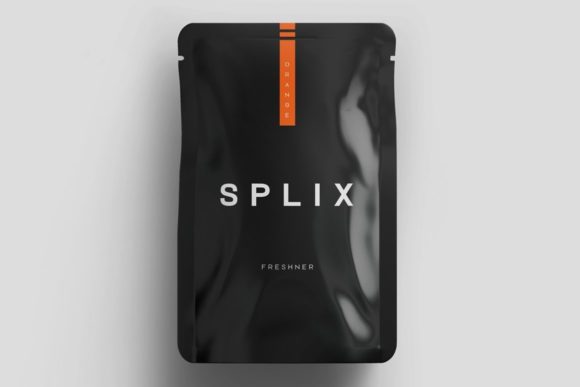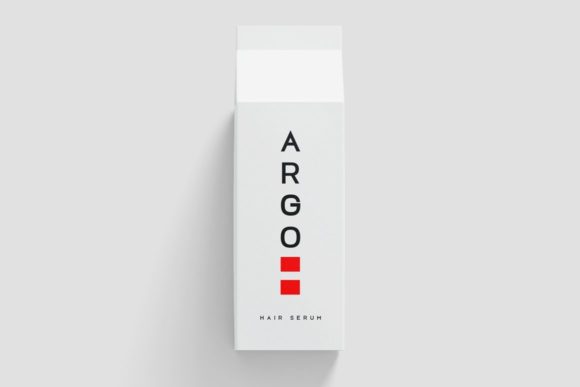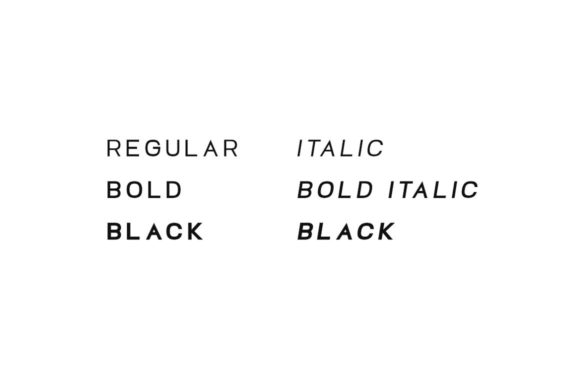
Discover the Perfect Partner for Your Creative Projects: Foslin Font
Have you ever been working on a design project, staring at a blank canvas, and suddenly a burst of creativity hits you? You envision the perfect font, the one that will elevate your design from good to great. That’s exactly what happened to me when I stumbled upon the Foslin Font. Its minimal and neat sans serif style has been a game-changer for my projects.
Foslin Font is designed to be versatile, making it the perfect addition to any creative endeavor. Whether you’re working on a branding project, a website, or a digital publication, Foslin Font’s clean lines and modern feel will help your design stand out. As a designer, you’ll appreciate the value of having a font that can adapt to any style, from minimalist to bold and eye-catching.
With Foslin Font, you’ll unlock a world of creative possibilities. Its flexibility and timeless design make it an essential tool for any designer looking to take their projects to the next level.
Foslin Font Key Features
- Font Family: Foslin Font is a sans-serif font family designed for digital use. It is available in 4 weights: Light, Regular, Medium, and Bold.
- Character Set: Foslin Font includes a wide range of characters, including Latin, Greek, and Cyrillic alphabets, as well as punctuation and symbols.
- Unique Characteristics: Foslin Font features a clean and modern design, with a focus on legibility and readability. Its unique characteristics include a high x-height and a subtle italic angle, making it an excellent choice for body text and digital signage.
Foslin Font Review
Overall, I think the Foslin font is a great addition to any design project, but like any font, it has its strengths and weaknesses.
- The Foslin font has a unique and elegant design that makes it perfect for titles and headings.
- The font is highly legible, even at smaller font sizes, making it a great choice for body text.
- The font family includes a wide range of weights and styles, giving designers a lot of flexibility when it comes to choosing the perfect look for their project.
- The Foslin font may not be the best choice for projects that require a bold, attention-grabbing font. Its elegant design can come across as a bit understated in some cases.
- The font may not be suitable for projects that require a lot of bold or italic text, as the bold and italic styles can look a bit inconsistent with the rest of the font.
Overall, I think the Foslin font is a solid choice for designers who are looking for a elegant and highly legible font. While it may not be perfect for every project, it’s definitely worth considering for any design that requires a touch of sophistication.
Tips for Getting the Most Out of Foslin Font
1. Use Foslin Font for headings and titles to add a touch of elegance to your design.
2. Experiment with different font sizes and styles to create visual interest.
3. Pair Foslin Font with other fonts to create a unique and eye-catching combination.
4. Use Foslin Font in digital designs, such as social media graphics and website headers.
Foslin Font is perfect for:
- Business cards and marketing materials
- Wedding and event branding
- Digital designs, such as social media graphics and website headers